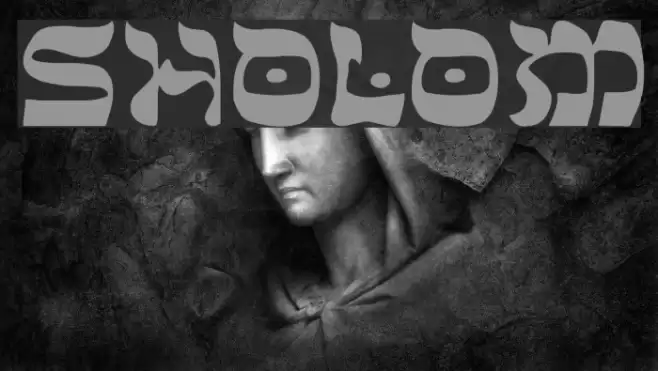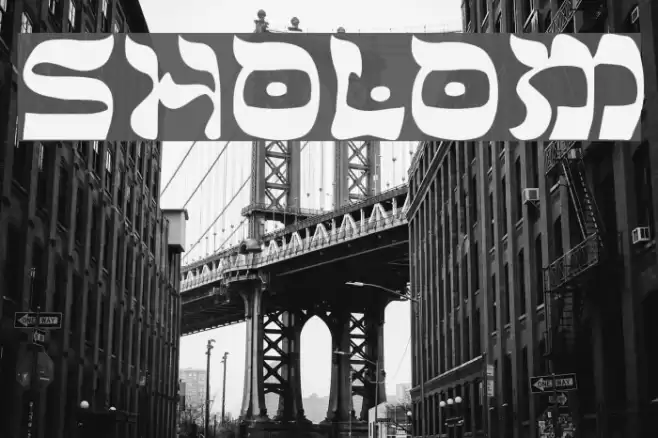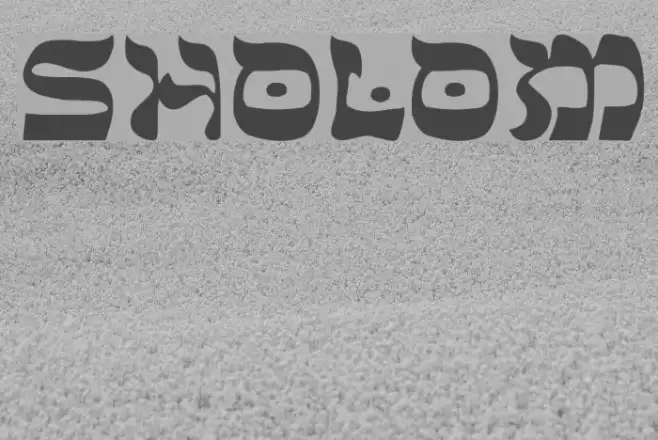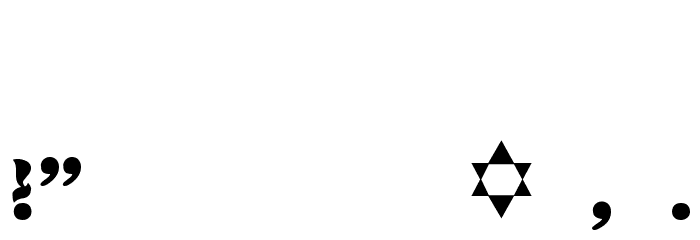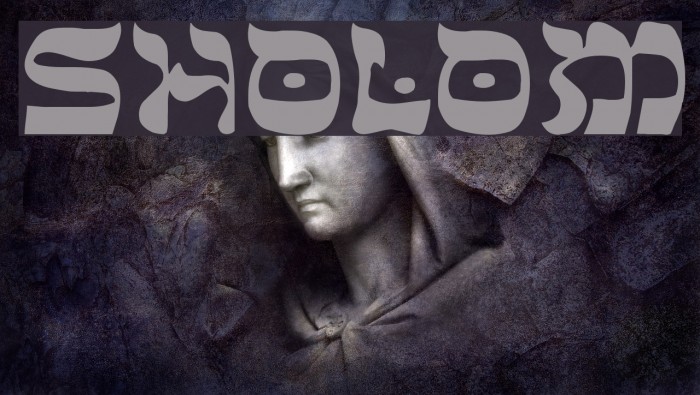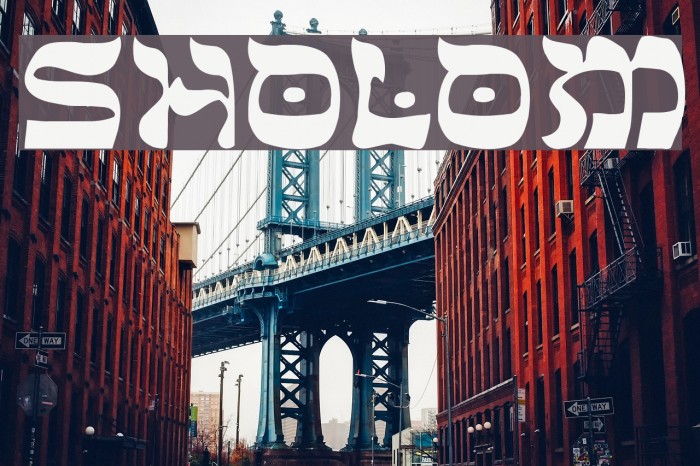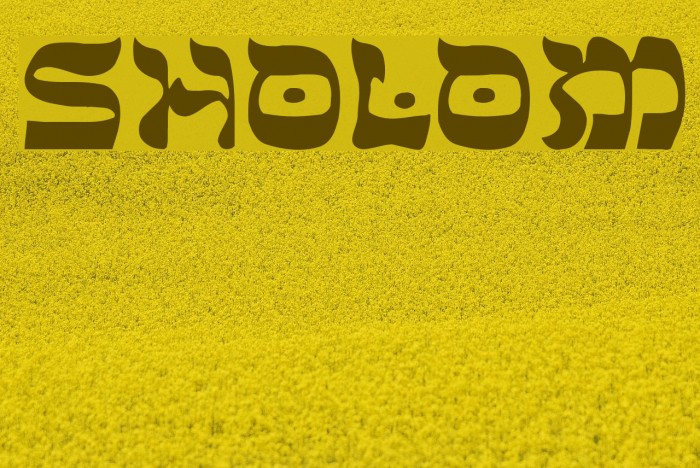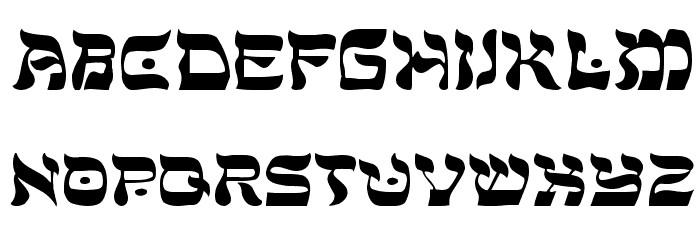
Sholom Font
Sholom Description
This font features a bold and decorative style with unique, intricate shapes that resemble traditional Hebrew calligraphy. The characters are heavily stylized, with thick strokes and sharp angles, giving them a distinct and artistic appearance. The uppercase and lowercase letters maintain a consistent design, while the numbers and special characters complement the overall aesthetic. The font's boldness and decorative elements make it stand out, ideal for projects that require a strong visual impact.
A bold, decorative font inspired by traditional Hebrew calligraphy from Uncategorized fonts.
- Proposed Projects: Ideal for cultural or religious event posters, artistic projects, branding for cultural organizations, or any design requiring a unique and bold typeface.